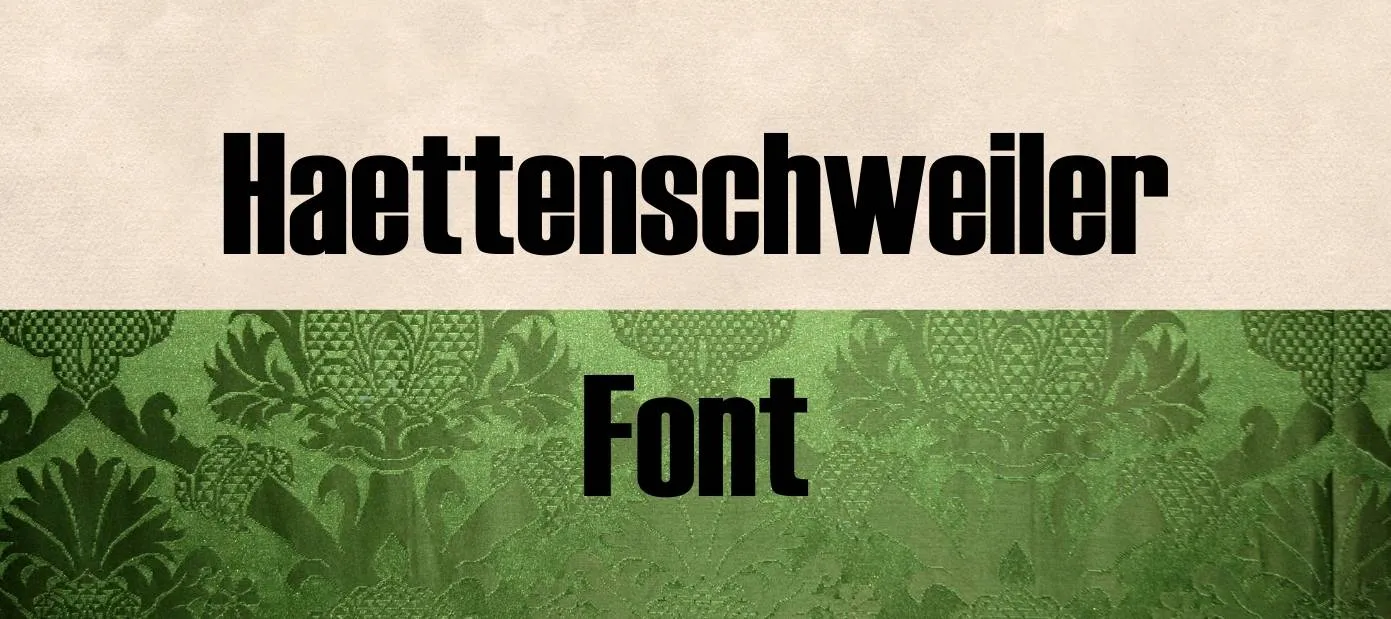
Haettenschweiler Google Font
Haettenschweiler Google Font - Making the web more beautiful, fast, and open through great typography Download haettenschweiler font from free cdn or use it on your website as webfont. The haettenschweiler font contains 653 beautifully designed characters. Discover the free haettenschweiler font at free font download ! Installable on pc, mac, linux, ios, and android platforms. ️ customize your own preview on ffonts.net to make sure. This font family contains grotesque styles that. Haettenschweiler was designed in 1954 by walter haettenschweiler for microsoft.
Discover the free haettenschweiler font at free font download ! Making the web more beautiful, fast, and open through great typography Haettenschweiler was designed in 1954 by walter haettenschweiler for microsoft. This font family contains grotesque styles that. Installable on pc, mac, linux, ios, and android platforms. Download haettenschweiler font from free cdn or use it on your website as webfont. ️ customize your own preview on ffonts.net to make sure. The haettenschweiler font contains 653 beautifully designed characters.
Discover the free haettenschweiler font at free font download ! Making the web more beautiful, fast, and open through great typography Installable on pc, mac, linux, ios, and android platforms. Download haettenschweiler font from free cdn or use it on your website as webfont. ️ customize your own preview on ffonts.net to make sure. Haettenschweiler was designed in 1954 by walter haettenschweiler for microsoft. The haettenschweiler font contains 653 beautifully designed characters. This font family contains grotesque styles that.
️ customize your own preview on ffonts.net to make sure. The haettenschweiler font contains 653 beautifully designed characters. This font family contains grotesque styles that. Download haettenschweiler font from free cdn or use it on your website as webfont. Making the web more beautiful, fast, and open through great typography
Discover the free haettenschweiler font at free font download ! Installable on pc, mac, linux, ios, and android platforms. ️ customize your own preview on ffonts.net to make sure. Download haettenschweiler font from free cdn or use it on your website as webfont. Haettenschweiler was designed in 1954 by walter haettenschweiler for microsoft.
Making the web more beautiful, fast, and open through great typography Discover the free haettenschweiler font at free font download ! Download haettenschweiler font from free cdn or use it on your website as webfont. ️ customize your own preview on ffonts.net to make sure. The haettenschweiler font contains 653 beautifully designed characters.
️ customize your own preview on ffonts.net to make sure. Discover the free haettenschweiler font at free font download ! Making the web more beautiful, fast, and open through great typography Haettenschweiler was designed in 1954 by walter haettenschweiler for microsoft. This font family contains grotesque styles that.
Making the web more beautiful, fast, and open through great typography This font family contains grotesque styles that. Download haettenschweiler font from free cdn or use it on your website as webfont. Installable on pc, mac, linux, ios, and android platforms. Haettenschweiler was designed in 1954 by walter haettenschweiler for microsoft.
Download haettenschweiler font from free cdn or use it on your website as webfont. Installable on pc, mac, linux, ios, and android platforms. ️ customize your own preview on ffonts.net to make sure. Discover the free haettenschweiler font at free font download ! Haettenschweiler was designed in 1954 by walter haettenschweiler for microsoft.
This font family contains grotesque styles that. The haettenschweiler font contains 653 beautifully designed characters. ️ customize your own preview on ffonts.net to make sure. Making the web more beautiful, fast, and open through great typography Haettenschweiler was designed in 1954 by walter haettenschweiler for microsoft.
This font family contains grotesque styles that. Making the web more beautiful, fast, and open through great typography The haettenschweiler font contains 653 beautifully designed characters. Discover the free haettenschweiler font at free font download ! Installable on pc, mac, linux, ios, and android platforms.
Making the web more beautiful, fast, and open through great typography Haettenschweiler was designed in 1954 by walter haettenschweiler for microsoft. This font family contains grotesque styles that. Download haettenschweiler font from free cdn or use it on your website as webfont.
The haettenschweiler font contains 653 beautifully designed characters. ️ customize your own preview on ffonts.net to make sure.